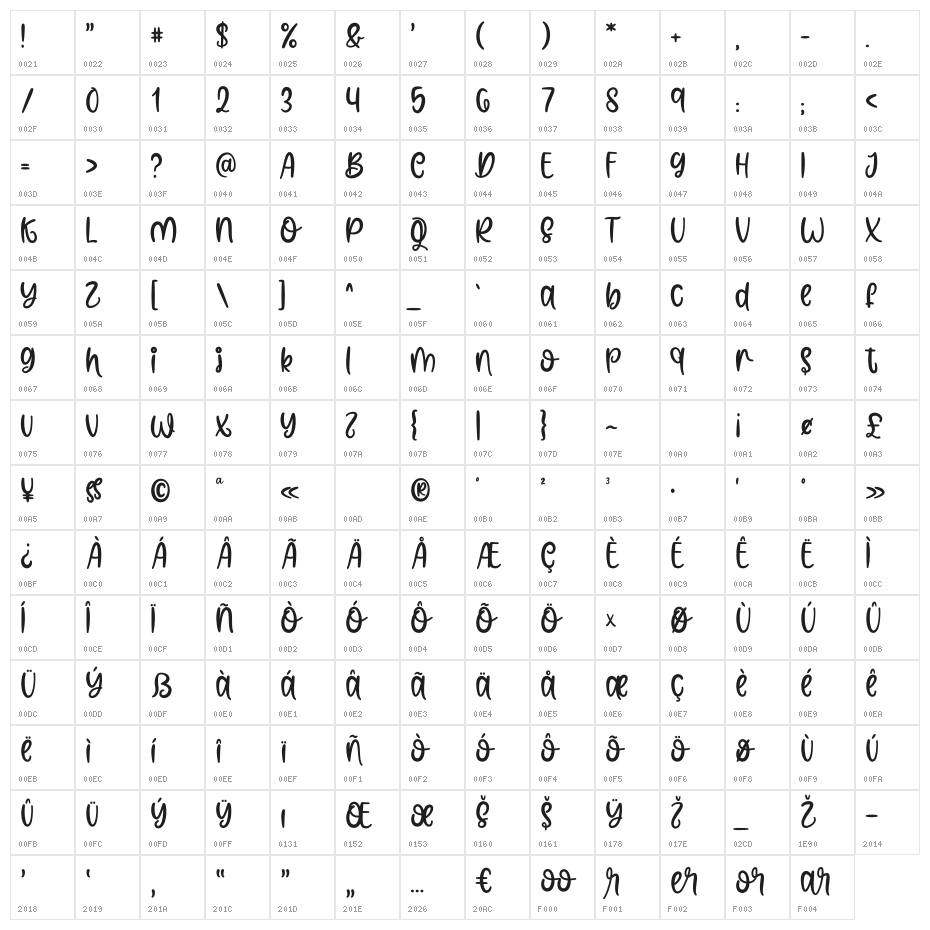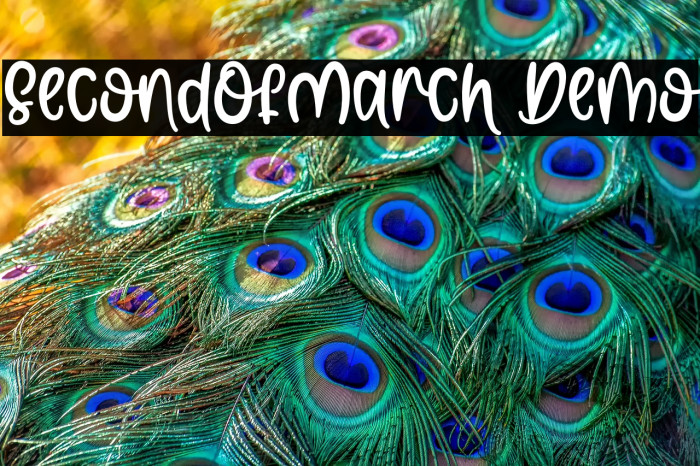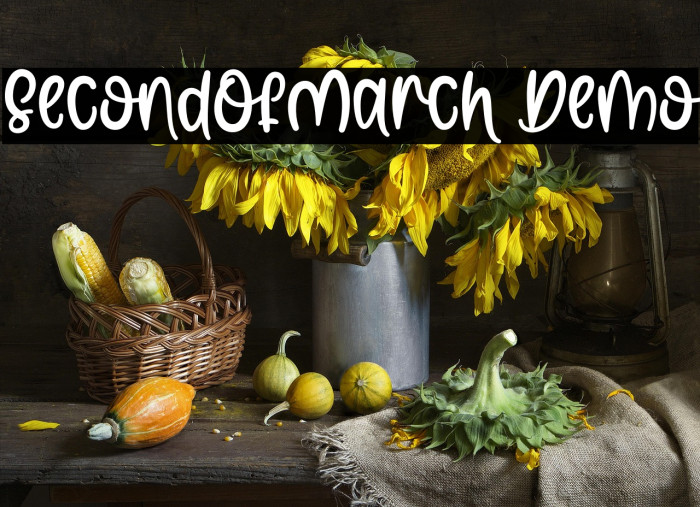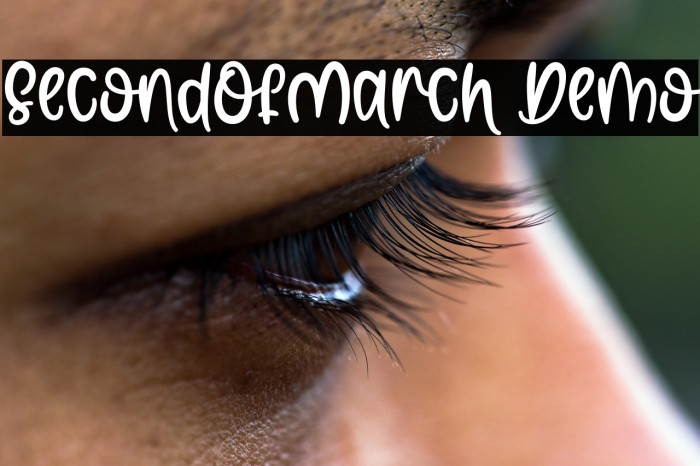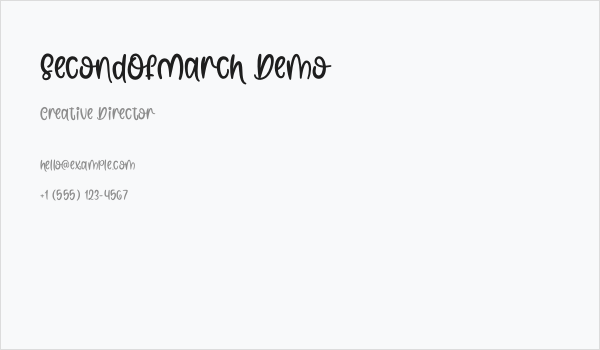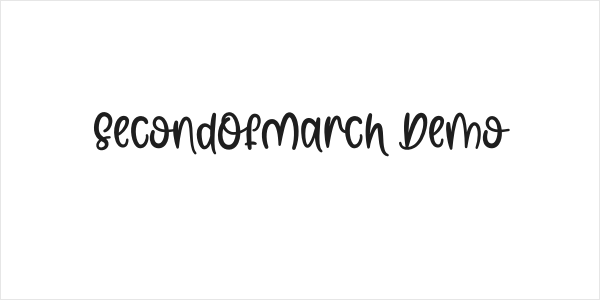
SecondOfMarch Demo Font
SecondOfMarch Demo Description
This playful and energetic font features a handwritten style with a bold and expressive character. The letters are rounded and slightly irregular, giving it a casual and friendly appearance. The uppercase and lowercase letters maintain a consistent flow, while the numerals and special characters complement the overall style. The strokes are thick, providing a strong presence on the page, and the slight slant adds a dynamic touch. This font is perfect for projects that require a personal and approachable feel.
Overall StylePlayful
Use CaseLogos, Headlines, Social media graphics
Proposed ProjectsIdeal for greeting cards, children's books, playful branding, and social media graphics.